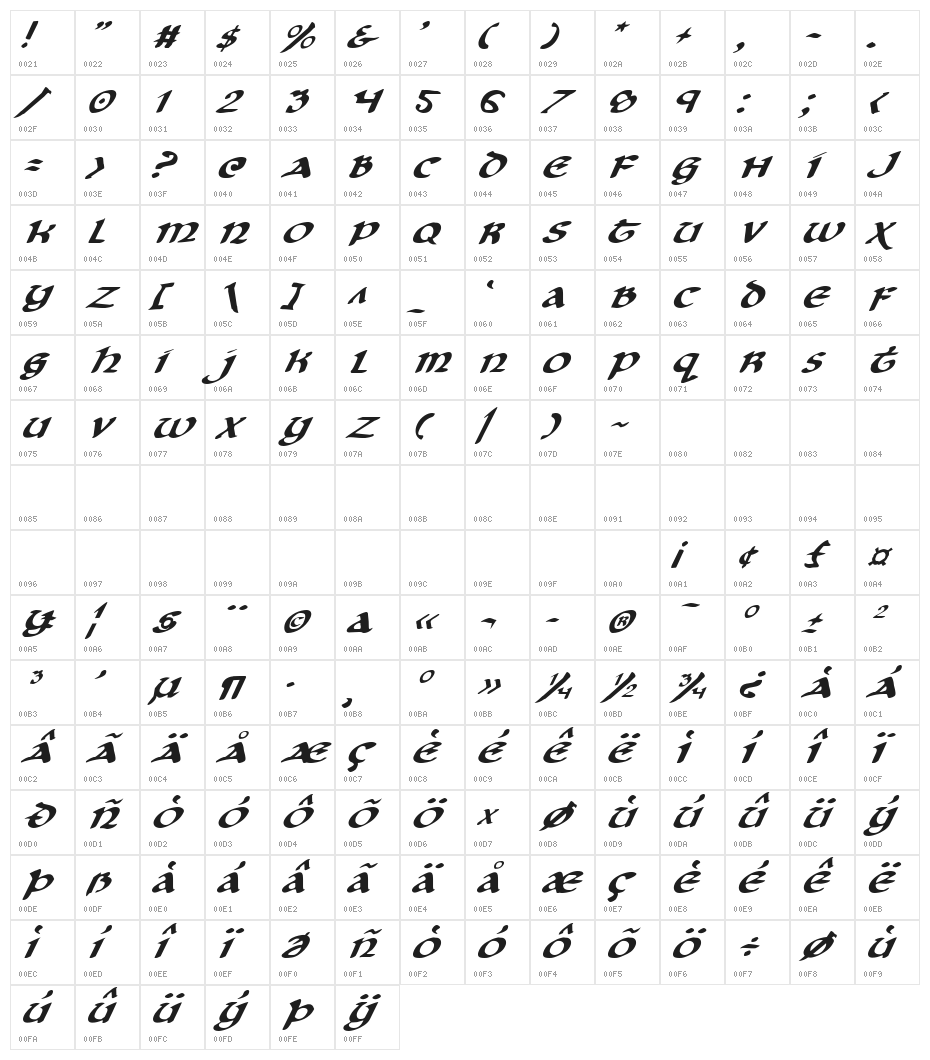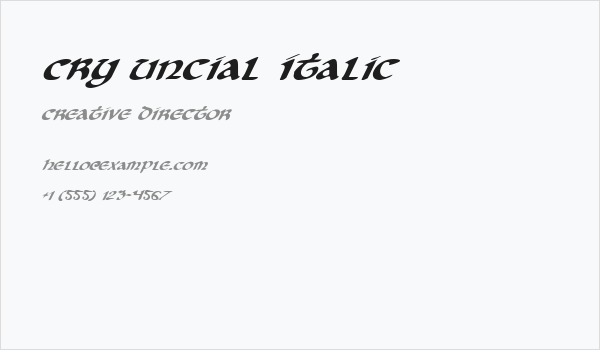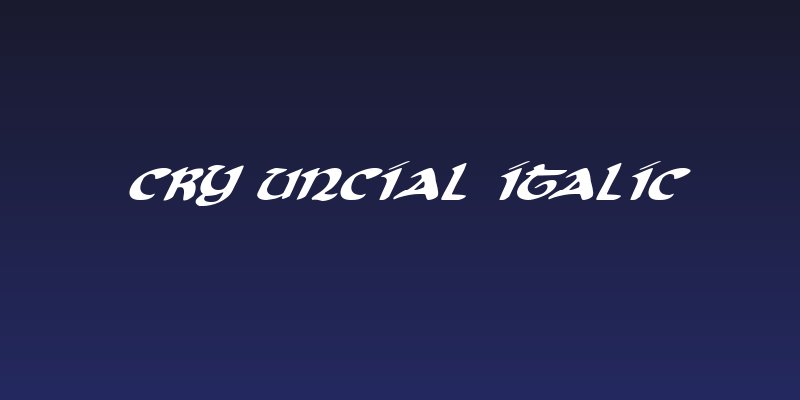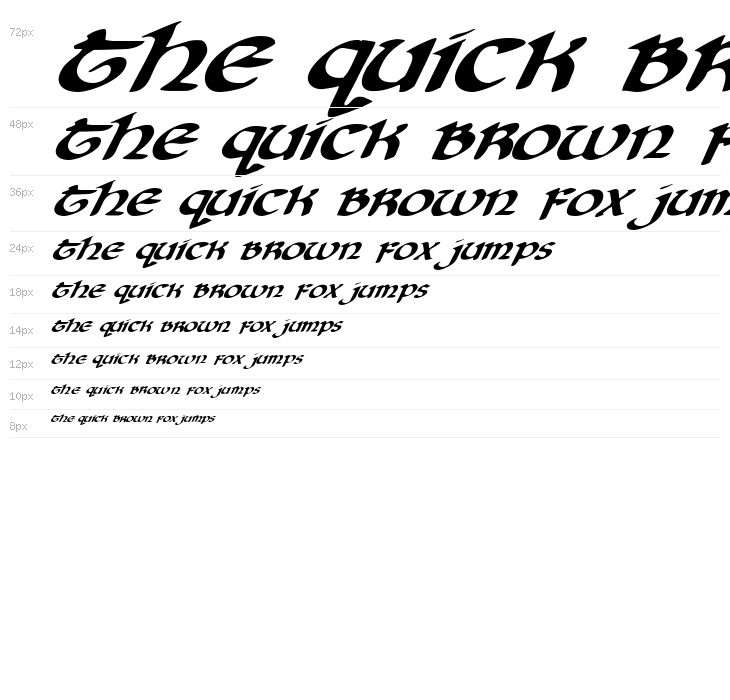
Cry Uncial Italic Font
Cry Uncial Italic Description
This font features a dynamic and flowing style, reminiscent of traditional calligraphy with a modern twist. The characters are italicized, giving them a sense of movement and elegance. The strokes are bold and expressive, with a slight slant that enhances the fluidity of the text. The uppercase and lowercase letters maintain a consistent style, with unique flourishes that add character and distinction. Numbers and special characters are designed to complement the overall aesthetic, making this font versatile for various applications. The boldness of the strokes ensures readability while maintaining an artistic flair.